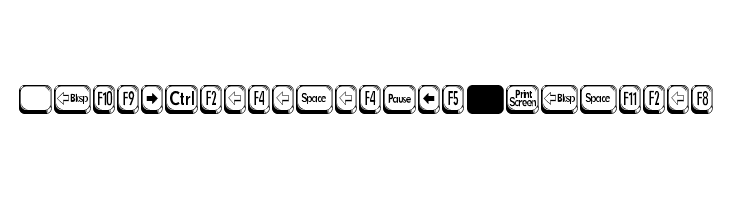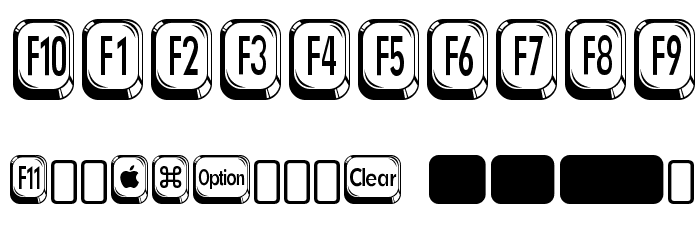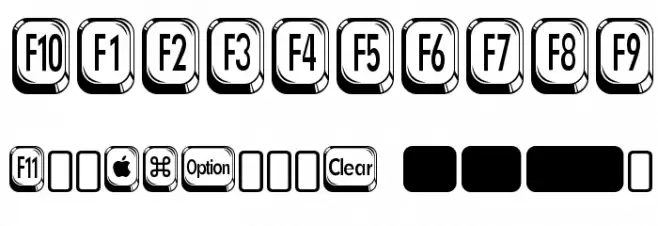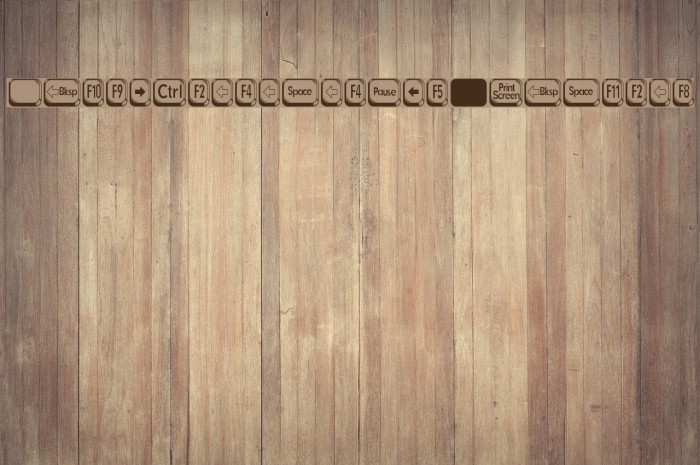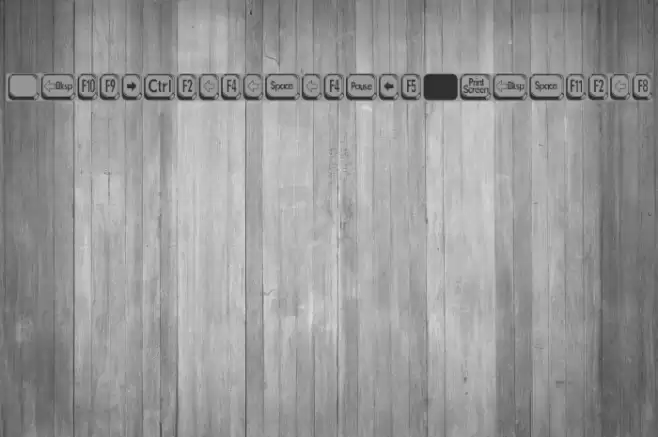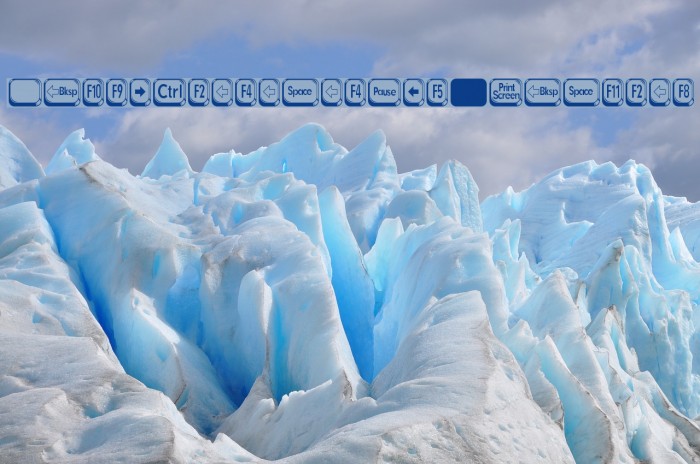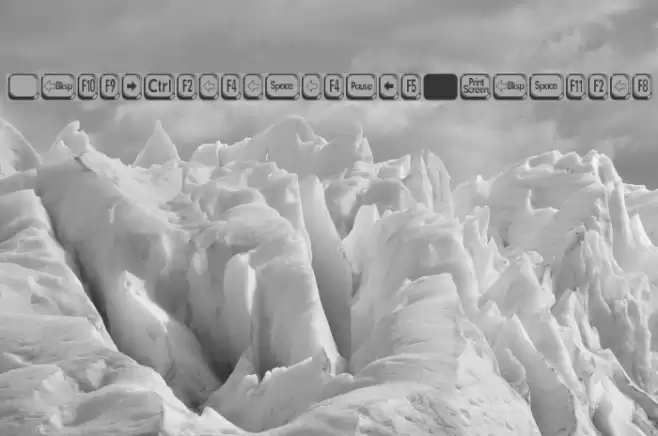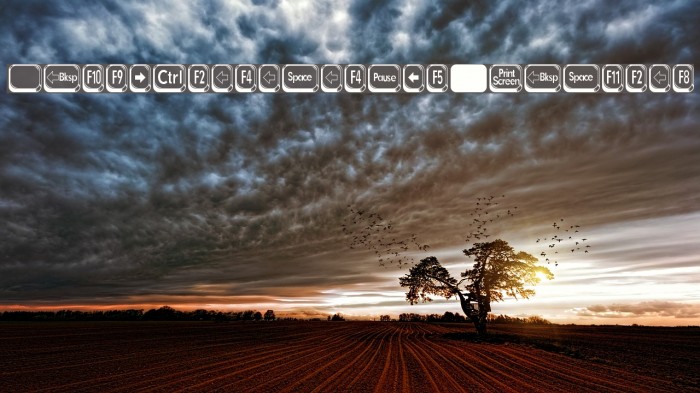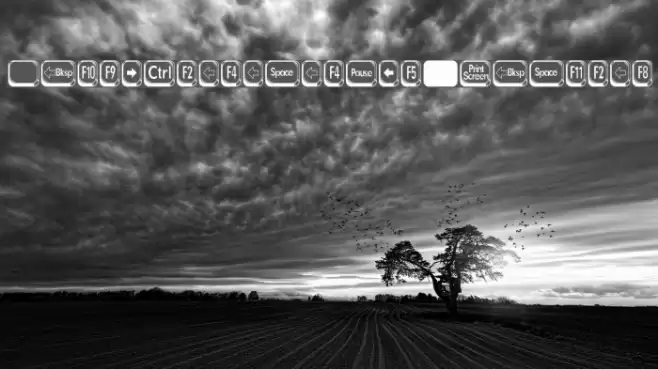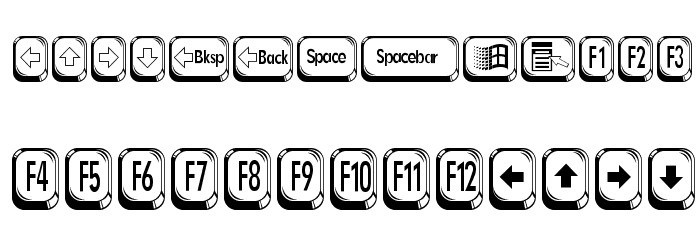
BetsyFlanaganTwo-Regular Font
| カテゴリ | Dingbats |
| 全体的なスタイル | Retro, Decorative |
| 用途 | Logos, Posters, Educational Materials |
| おすすめプロジェクト | Ideal for tech-themed designs, retro computing projects, educational materials, or any creative work that requires a playful, nostalgic touch. |